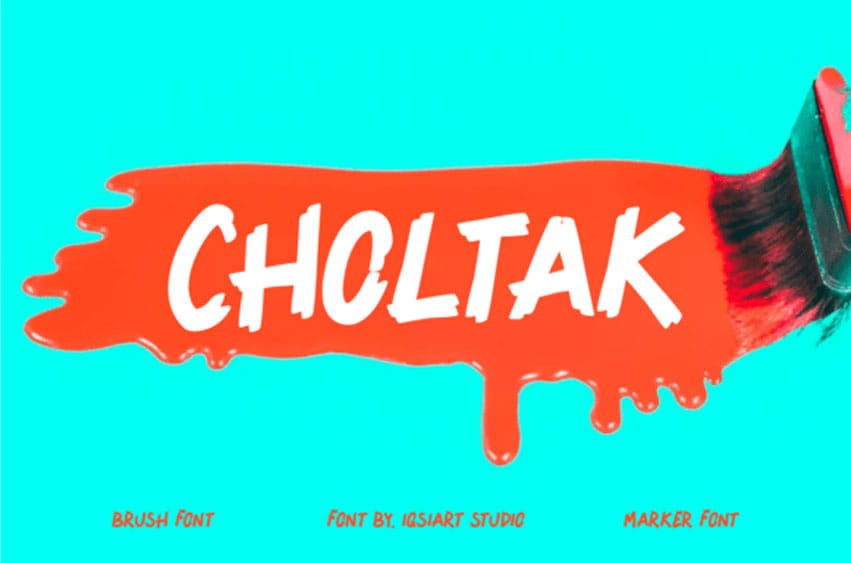
Choltak Font Inject your creative projects with the unfiltered energy of Choltak, a raw brush and marker font. This typeface features heavy, spontaneous strokes characterized by visible bristle textures and an aggressive, hand-painted aesthetic.
Its chunky visual weight and energetic, uneven baseline make it an extraordinary choice for edgy streetwear branding, underground music posters, extreme sports graphics, and standout social media headers. Choltak delivers a sense of raw, handcrafted intensity and professional creative character to every word, ensuring your brand carries an unyielding and rebellious personality.